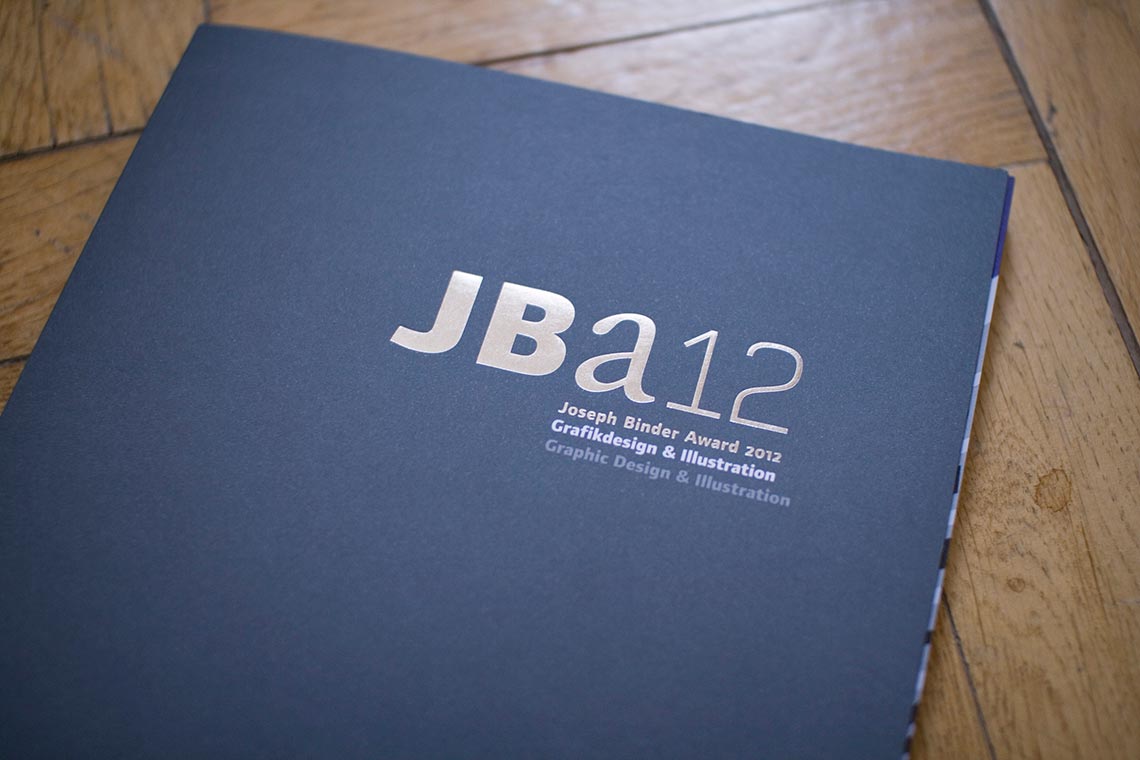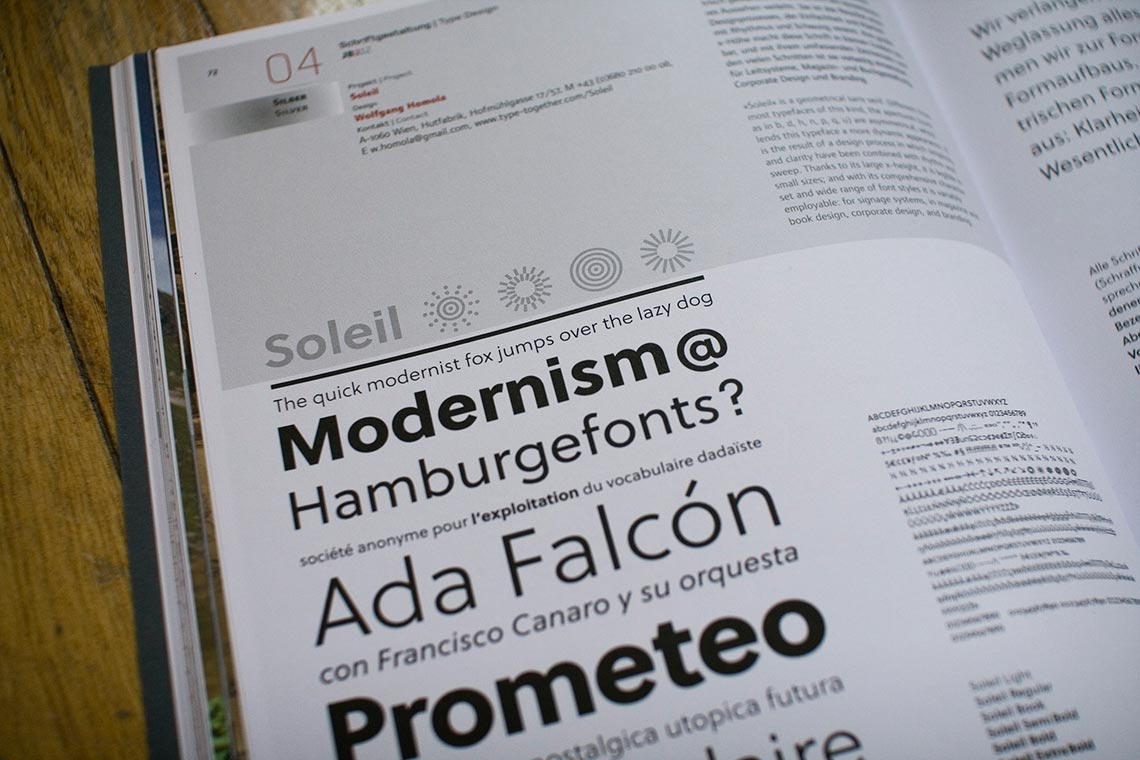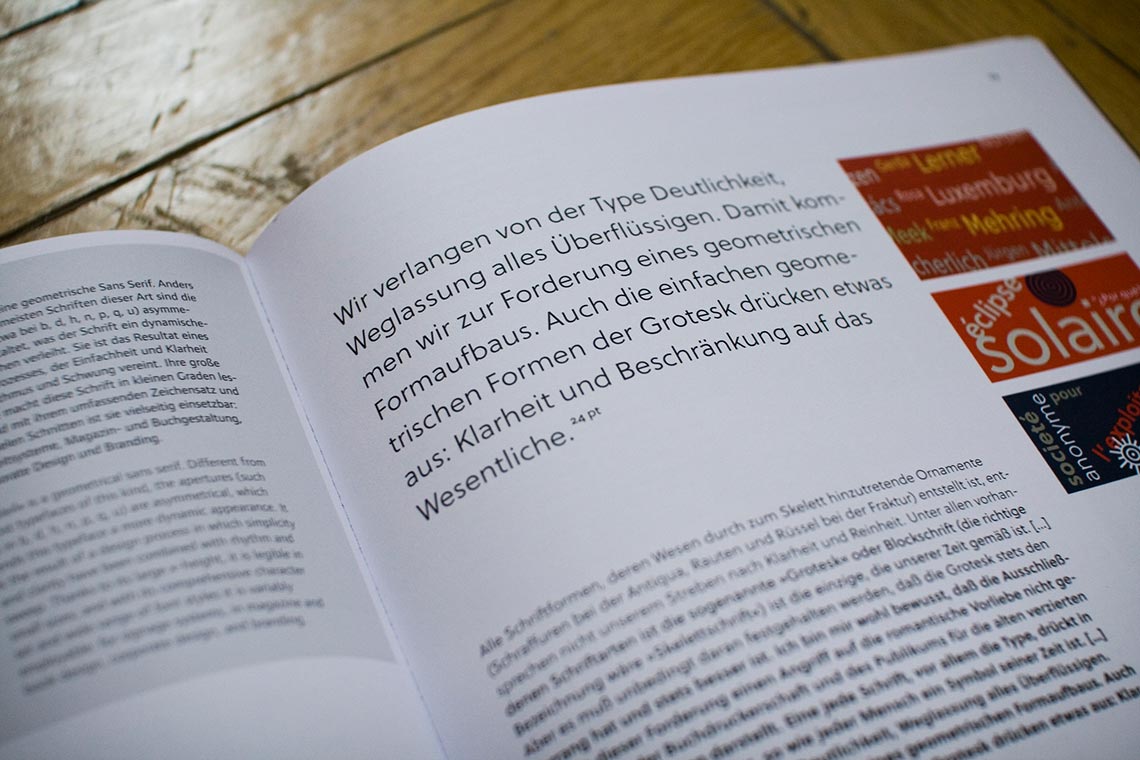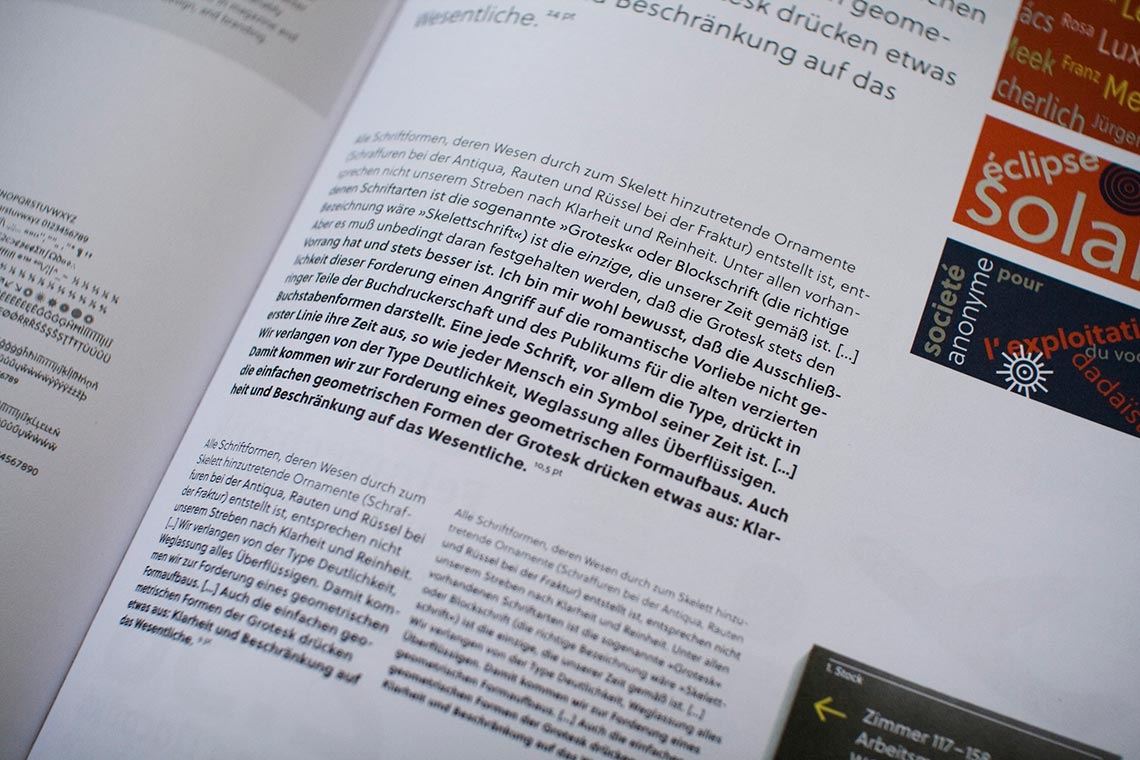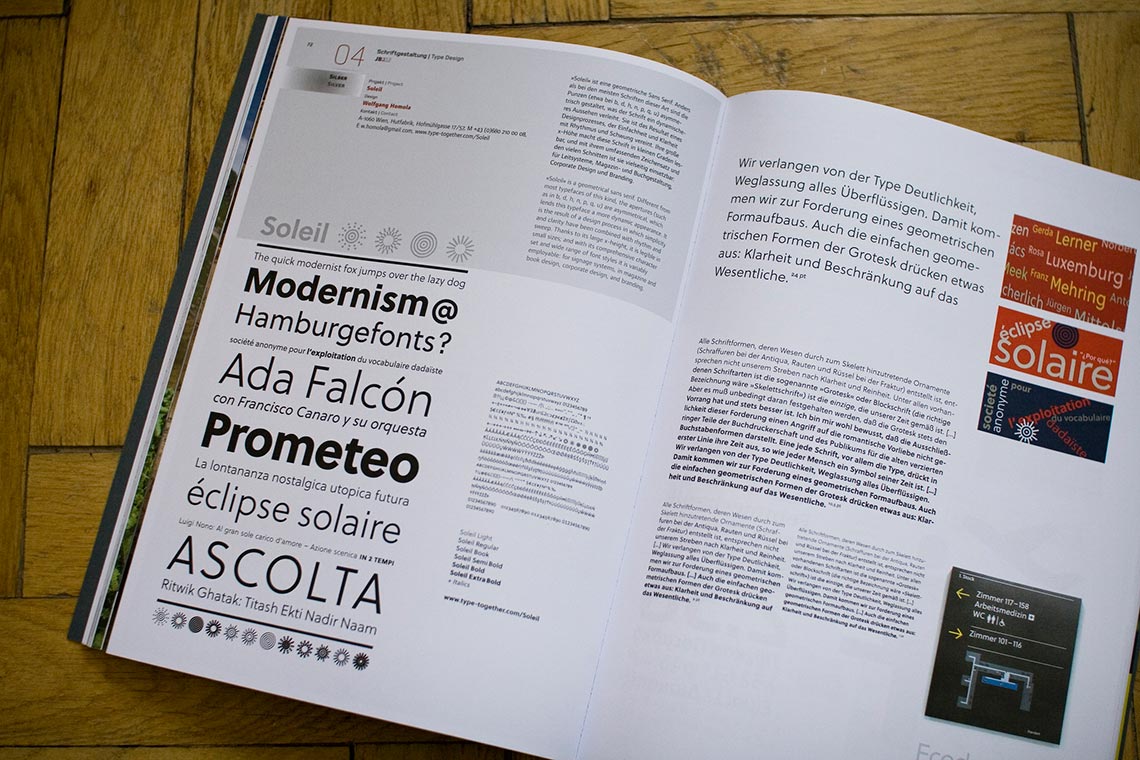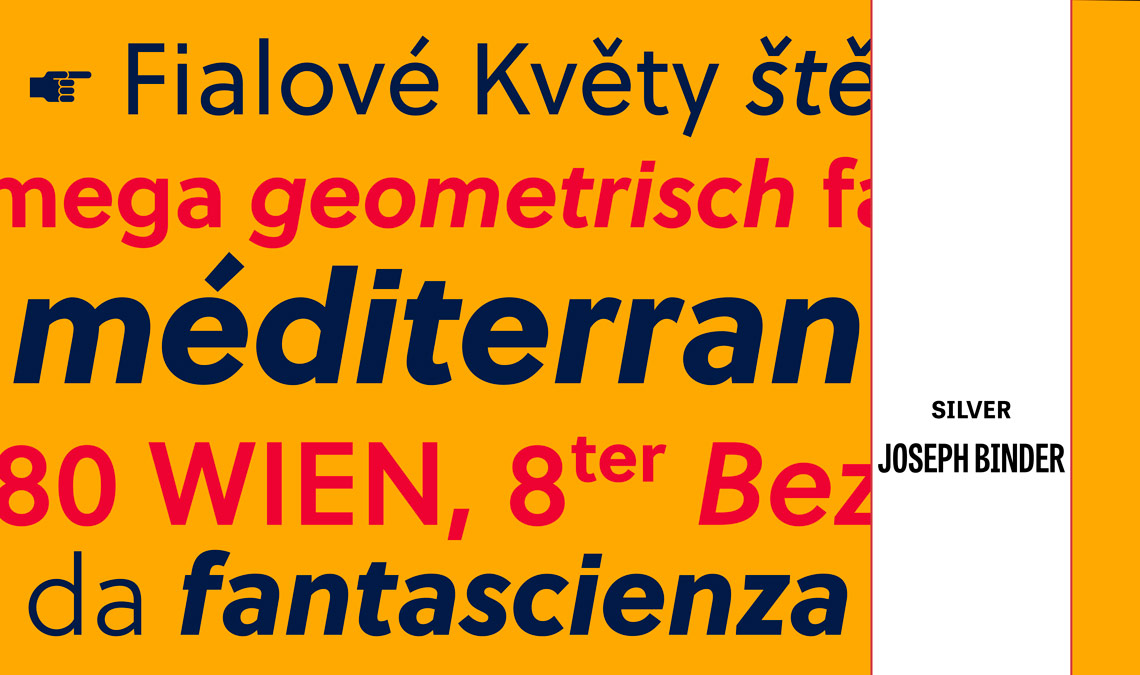
Joseph Binder Award
Geometric sans serif Soleil receives Silver at the Joseph Binder Award 2012.
We are happy to announce that Wolfgang Homola’s unusual geometric sans serif Soleil received Silver at the Austrian Joseph Binder Award 2012, promoted by Design Austria.